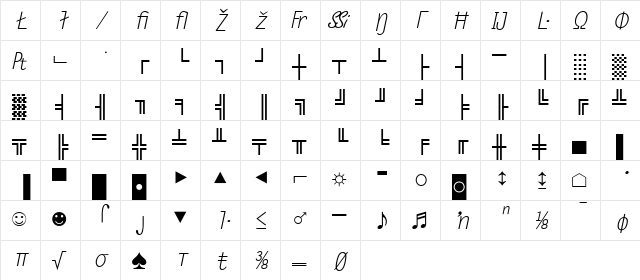
Micro Pi Four SSi Normal
Design Context for Micro Pi Four SSi Typeface
Micro Pi Four SSi offers clean, dependable letterforms without strong stylistic allegiance, making it a practical choice for designers who need flexibility.